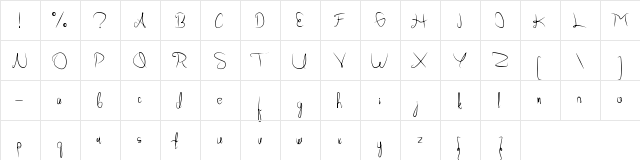
AllabamaPersonalUse Regular
| Designer | FallenGraphic |
Design Context for AllabamaPersonalUse Typeface
AllabamaPersonalUse is a composed and adaptable typeface that performs quietly and consistently across a wide range of design contexts.